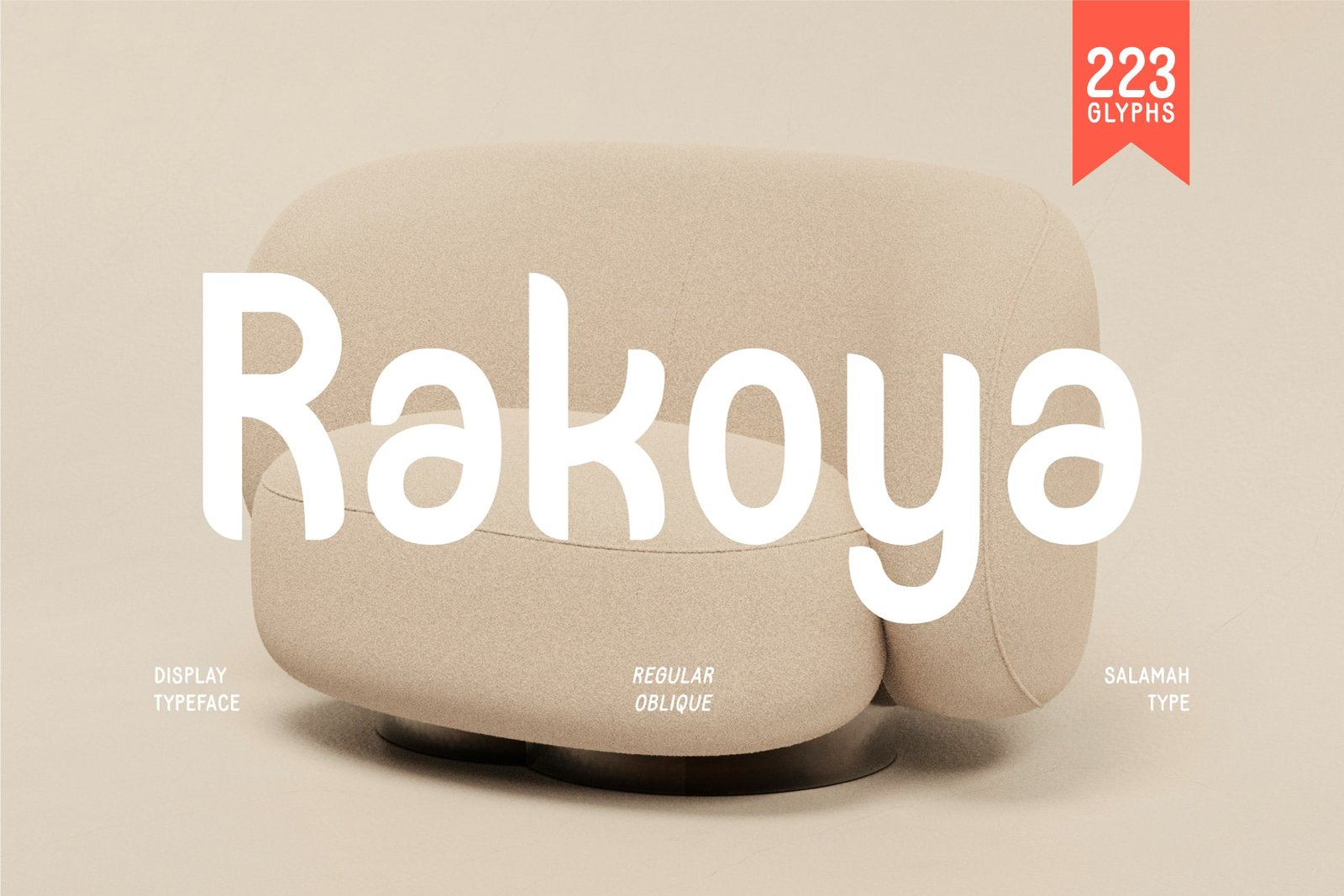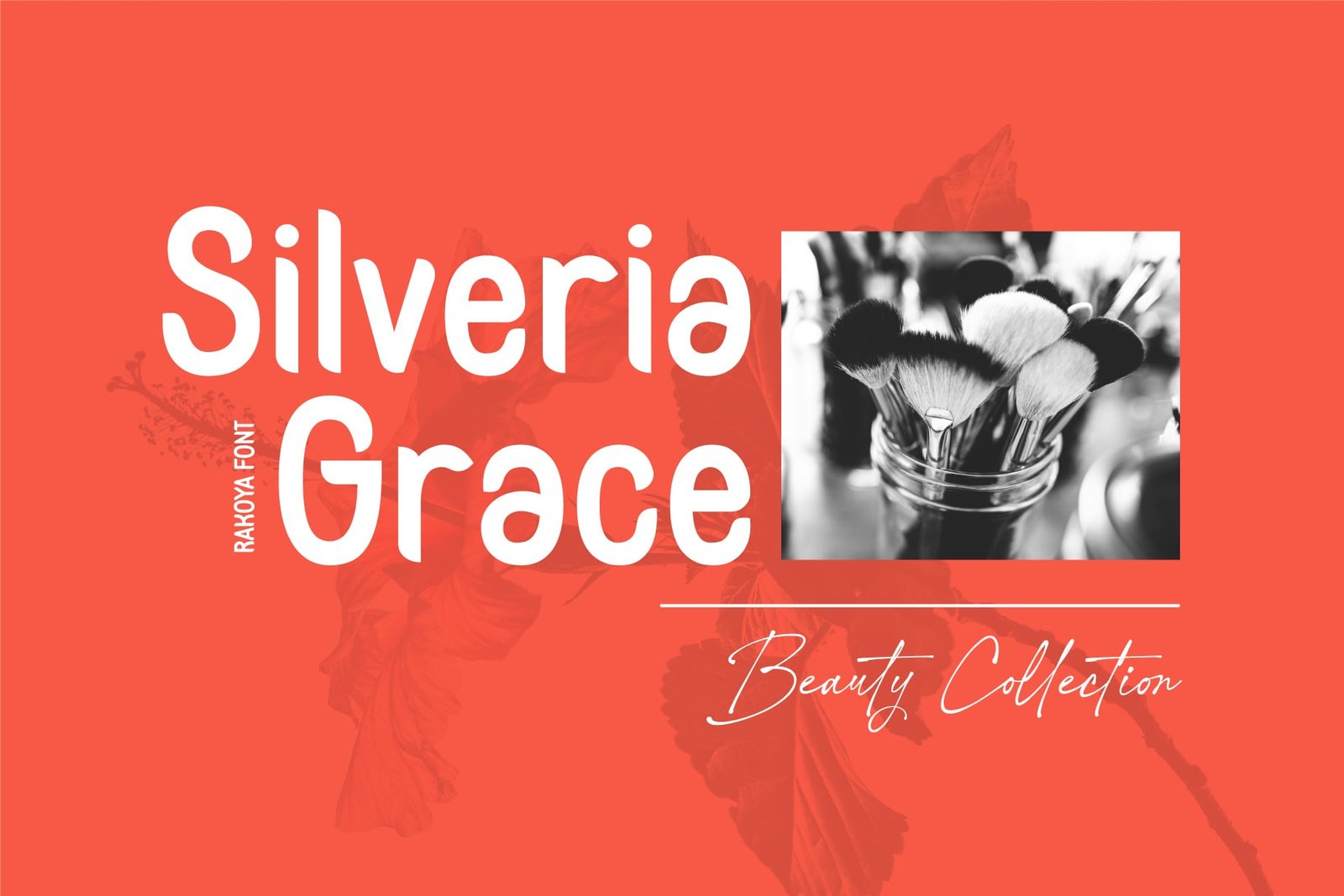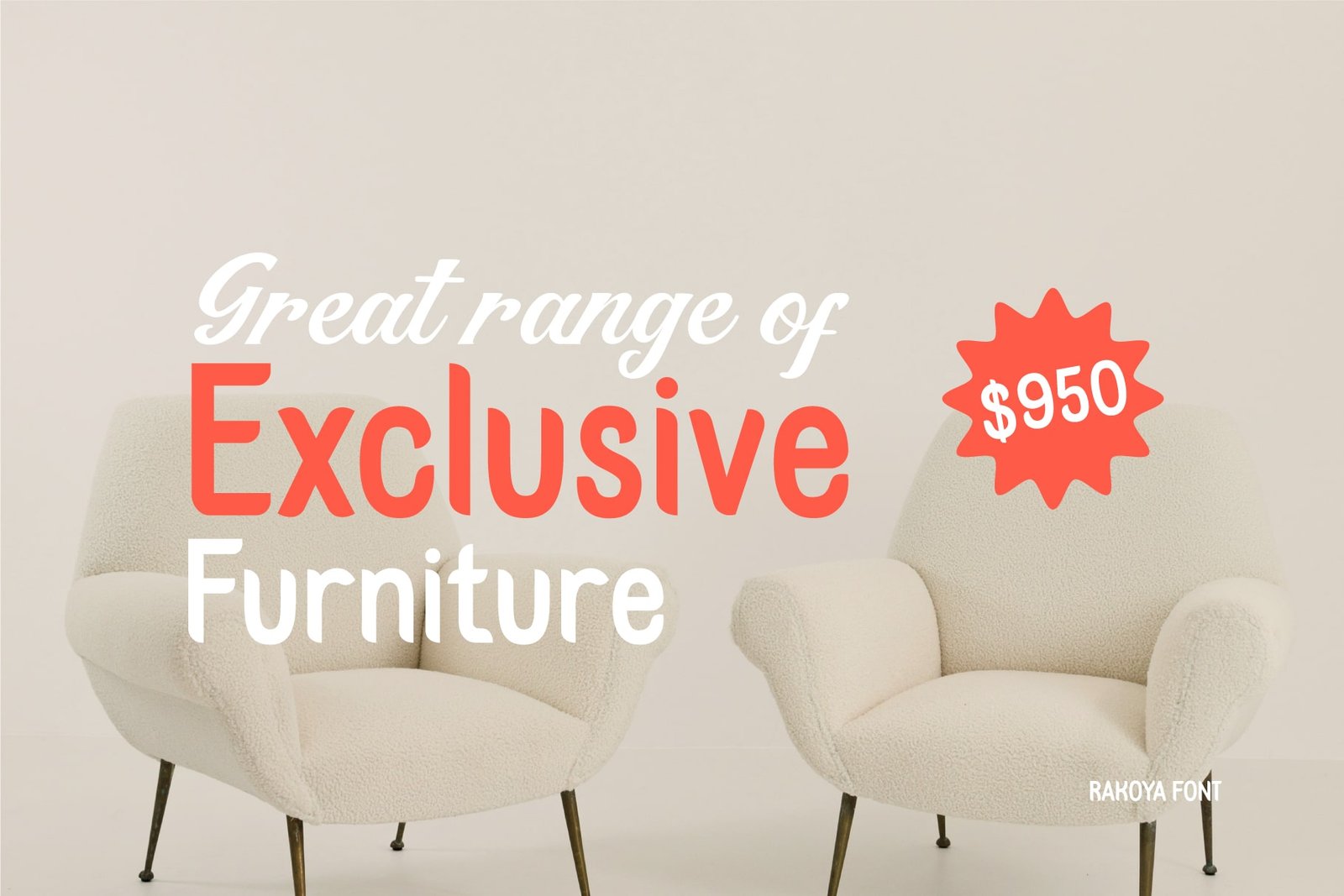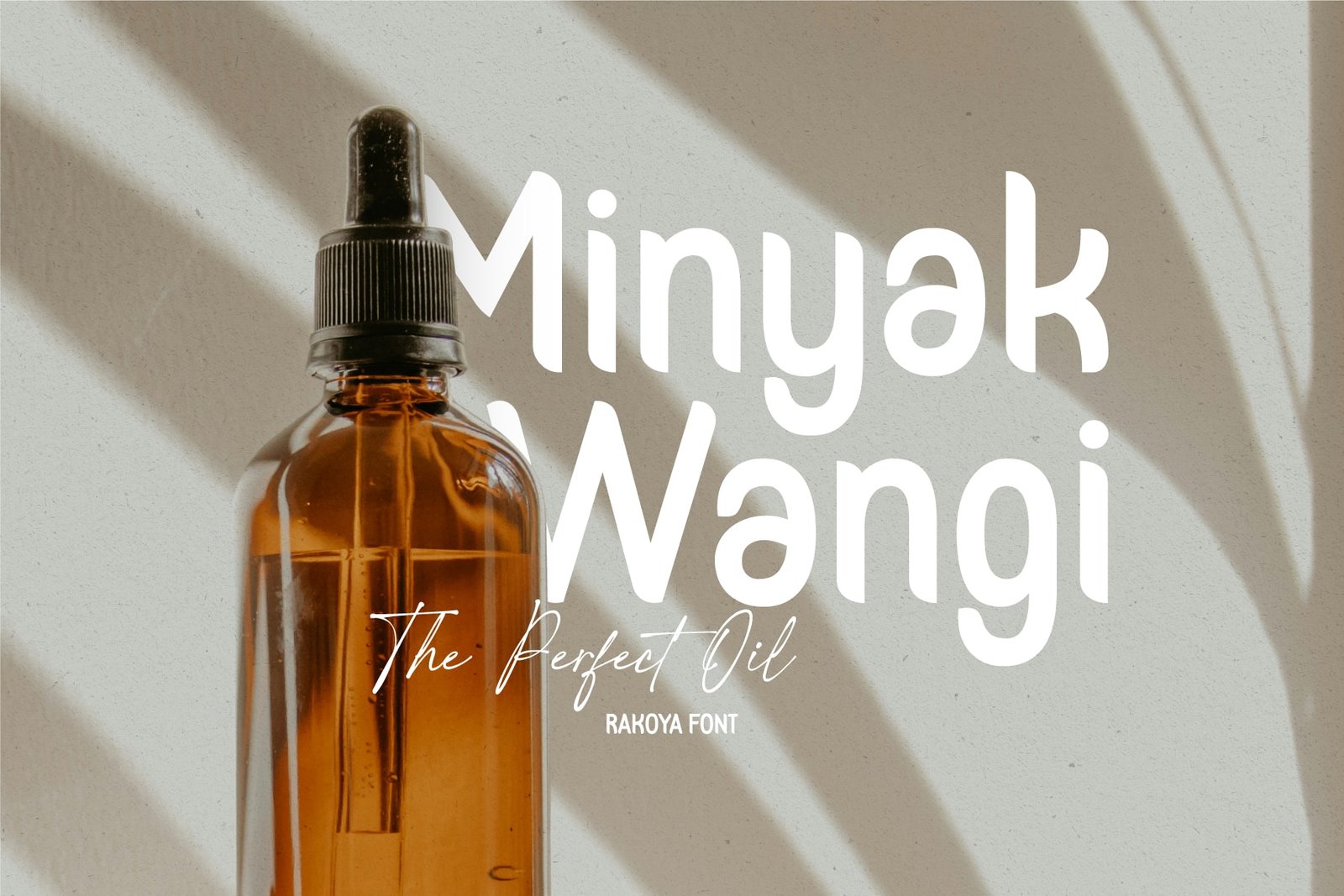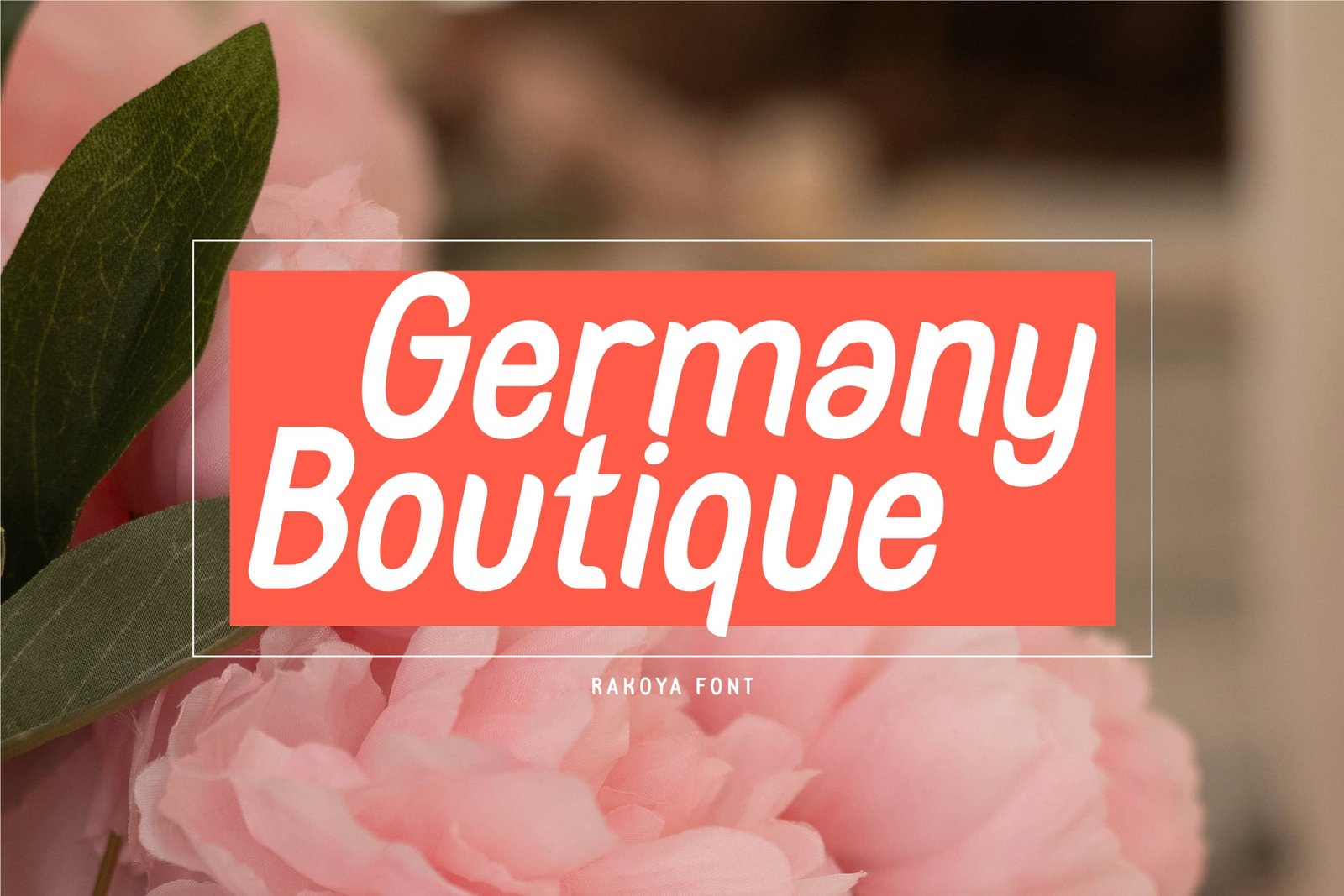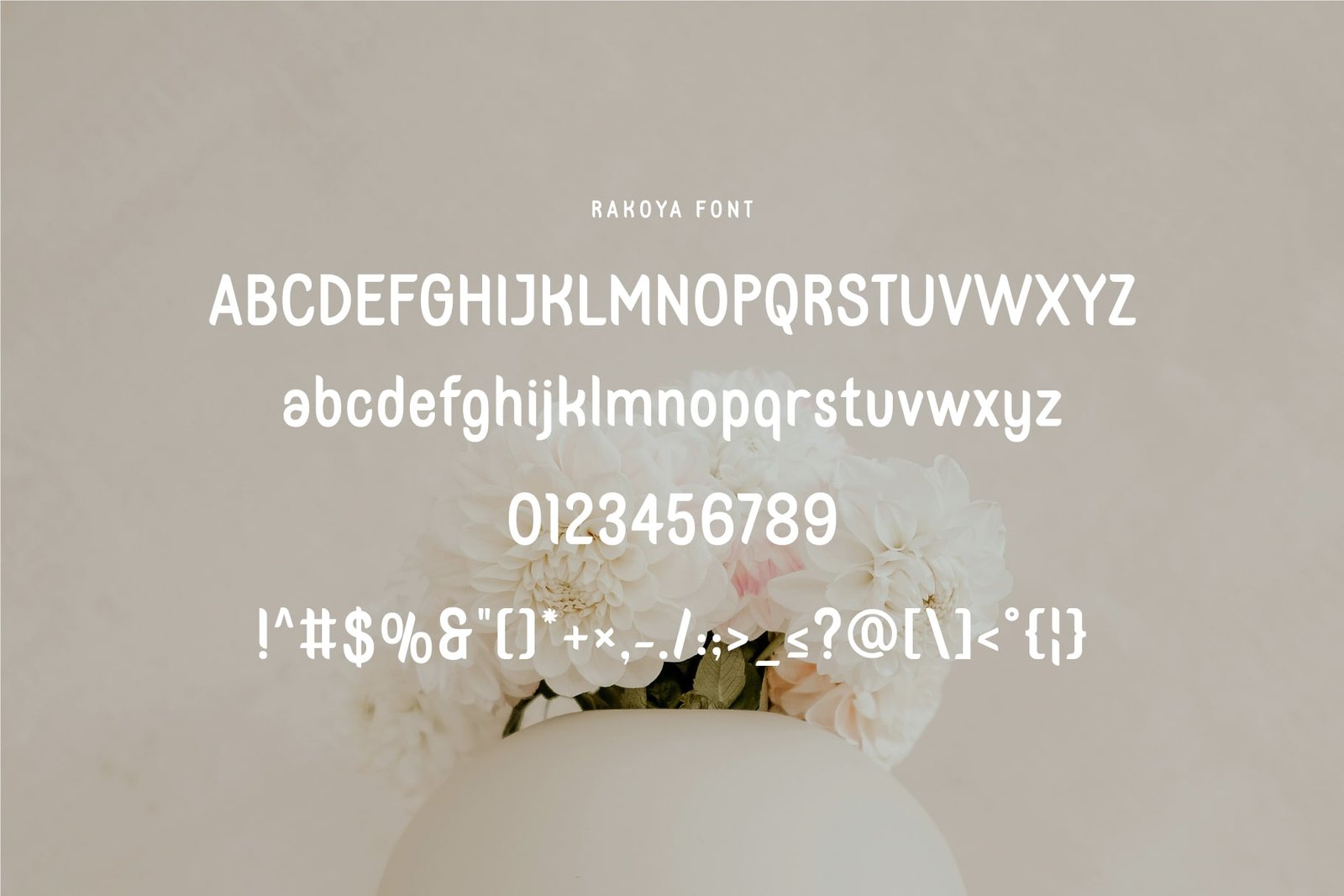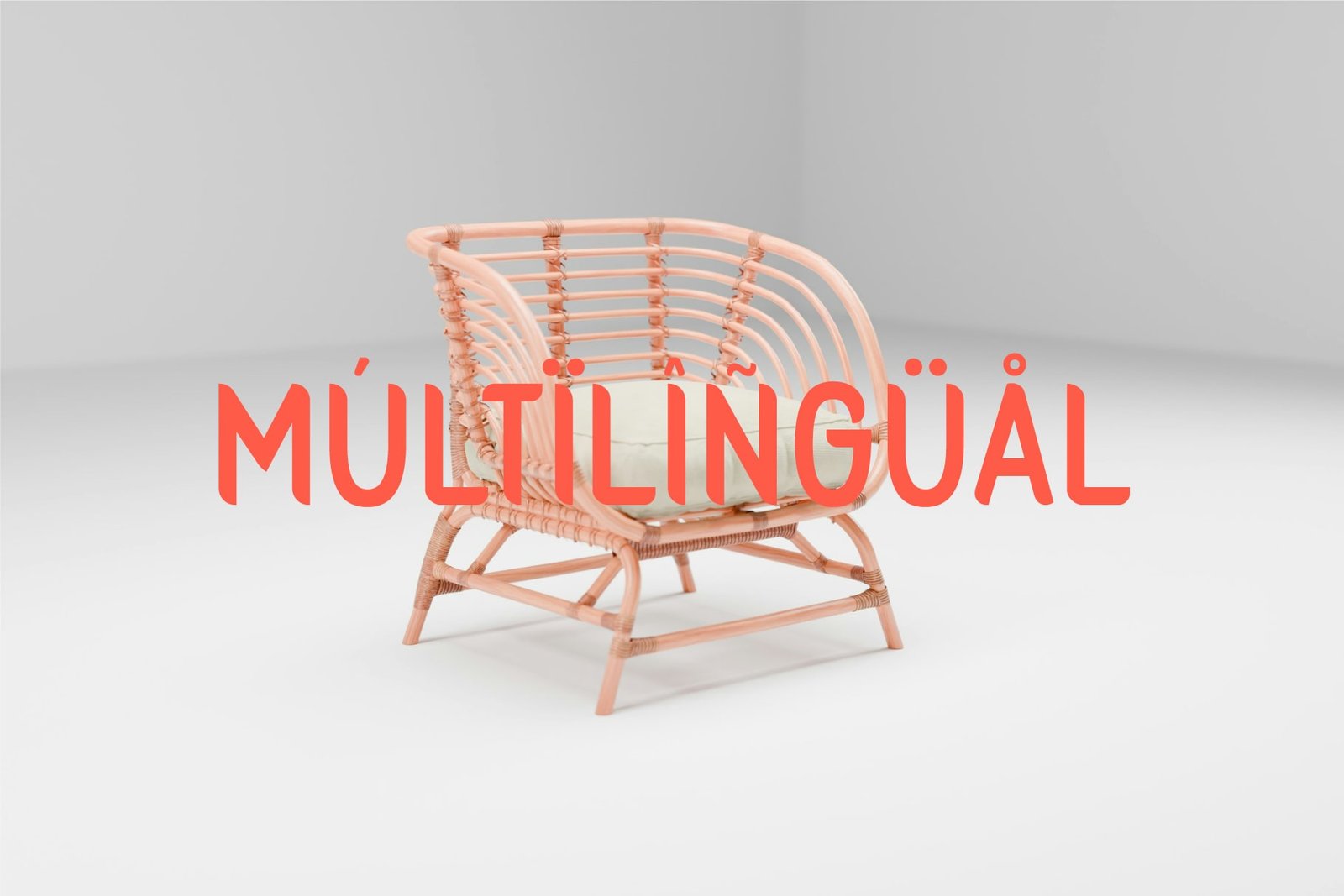
- Rakoya – Smooth Sans Font
Rakoya is a playful and modern display typeface designed to bring warmth and character to any creative project. Featuring smooth curves, rounded edges, and unique letterforms, Rakoya blends a friendly personality with a strong visual impact. This makes it an excellent choice for branding, logo design, social media content, quotes, packaging, advertising, and poster layouts.
The clean yet distinctive design of Rakoya ensures high readability, making it versatile for both digital and print use. Whether you’re creating bold headlines, cheerful product labels, or eye-catching Instagram posts, Rakoya adds a touch of fun and approachability to your work.
✨ Font Features:
Rakoya Regular
Rakoya Oblique
Multilingual support
Best for: logos, branding kits, poster design, quotes, packaging, social media templates, invitations, editorial layouts, and more.